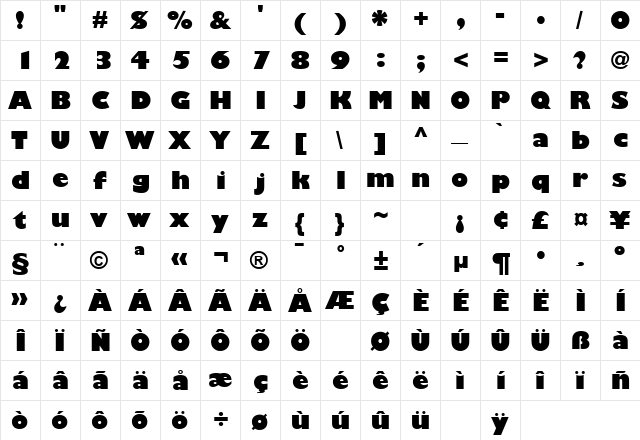
Gentle Sans Ultra Bold Regular
Design Context for Gentle Sans Ultra Bold Typeface
Gentle Sans Ultra Bold offers clean, dependable letterforms without strong stylistic allegiance, making it a practical choice for designers who need flexibility. The heavy weight commands attention and anchors typographic hierarchies.